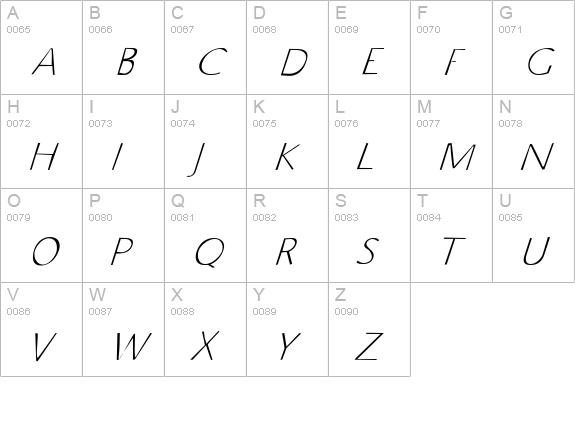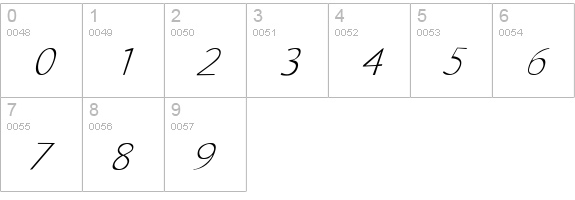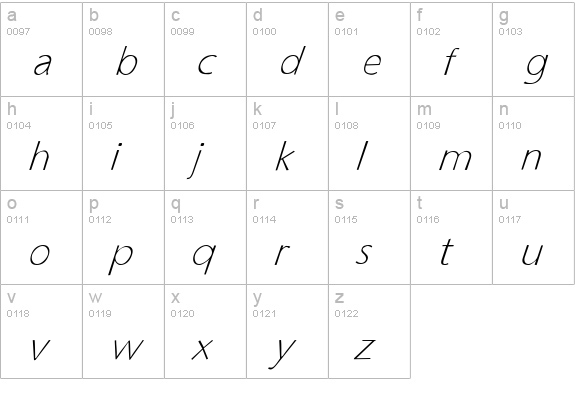
7SecondsFalling Font Details
7SecondsFalling font is a modern and stylish typeface that exudes elegance and sophistication. Its sleek lines and contemporary design make it perfect for a wide range of projects, from branding to advertising to web design. The font's unique character set adds a touch of individuality and flair to any text it is applied to. Whether you're looking to create eye-catching headlines or sleek body text, 7SecondsFalling is sure to make a statement. Best of all, this stunning font is available for free download at FontsMarket.com. That's right, you can add this versatile and stylish typeface to your font library without spending a dime. Don't miss out on the opportunity to enhance your designs with the beauty and elegance of 7SecondsFalling font - download it today and take your projects to the next level!